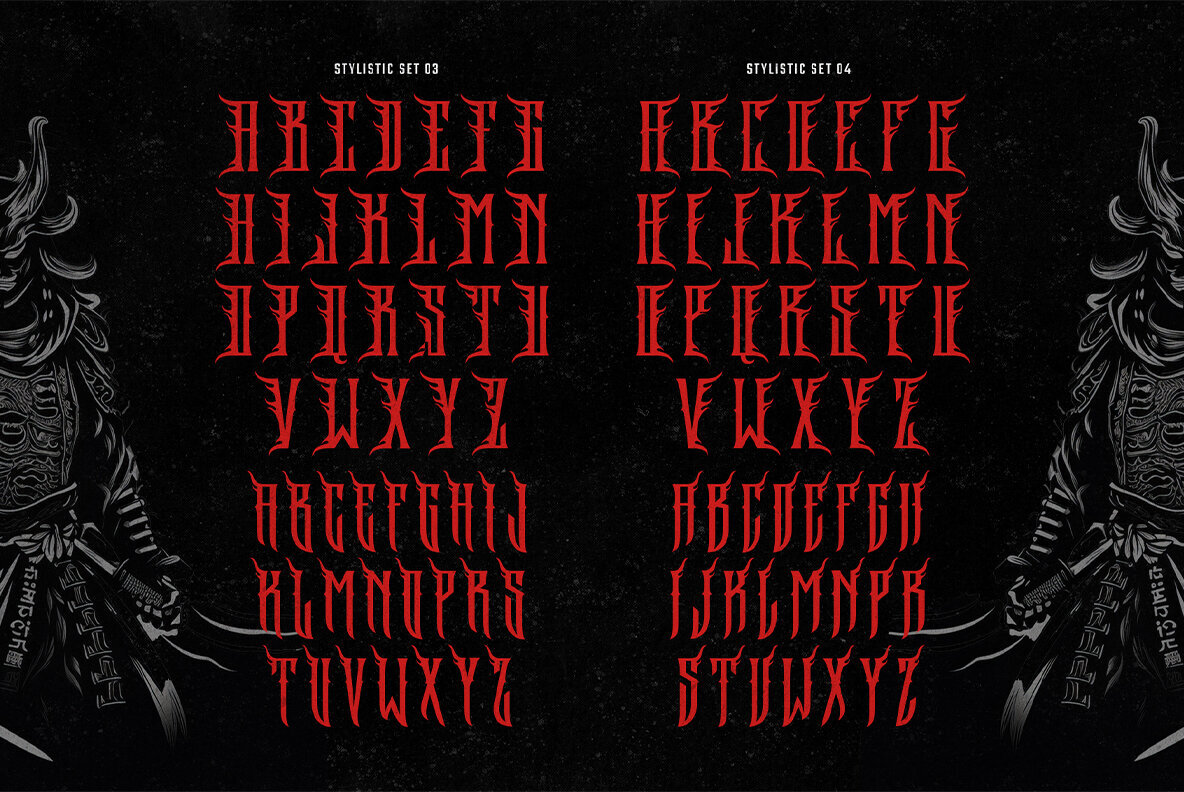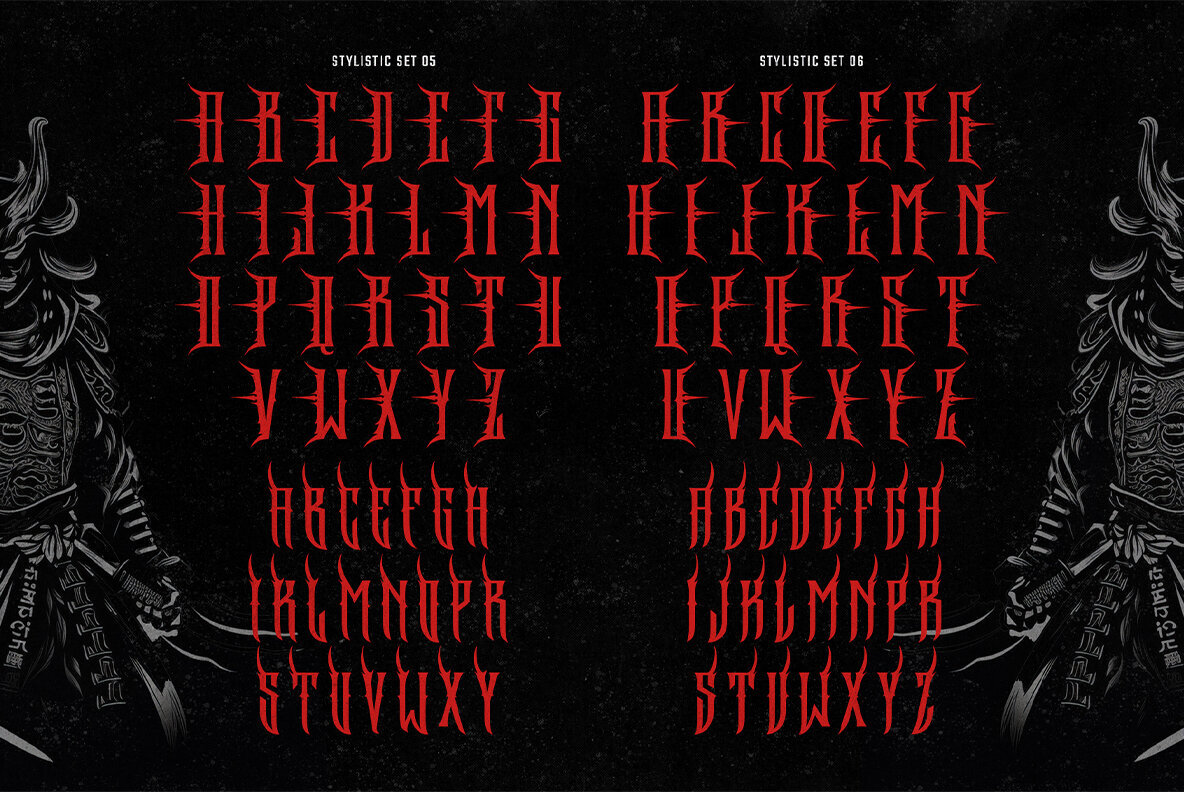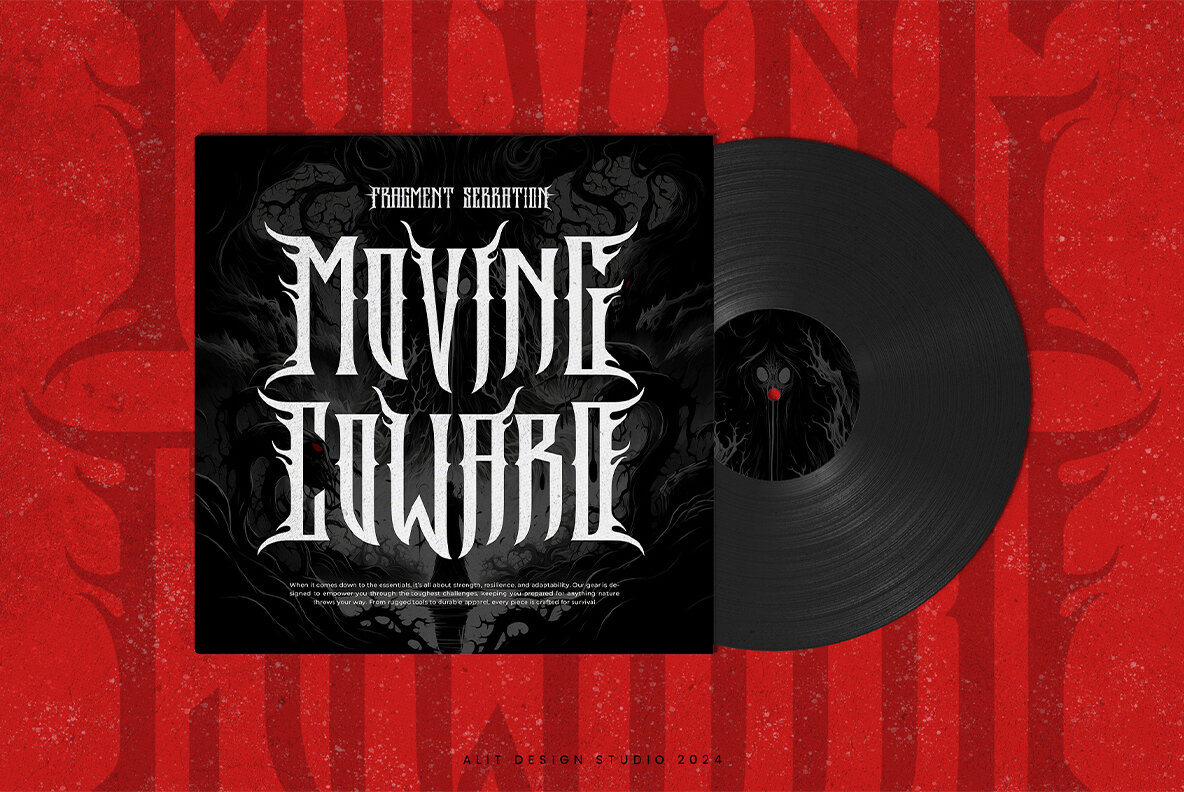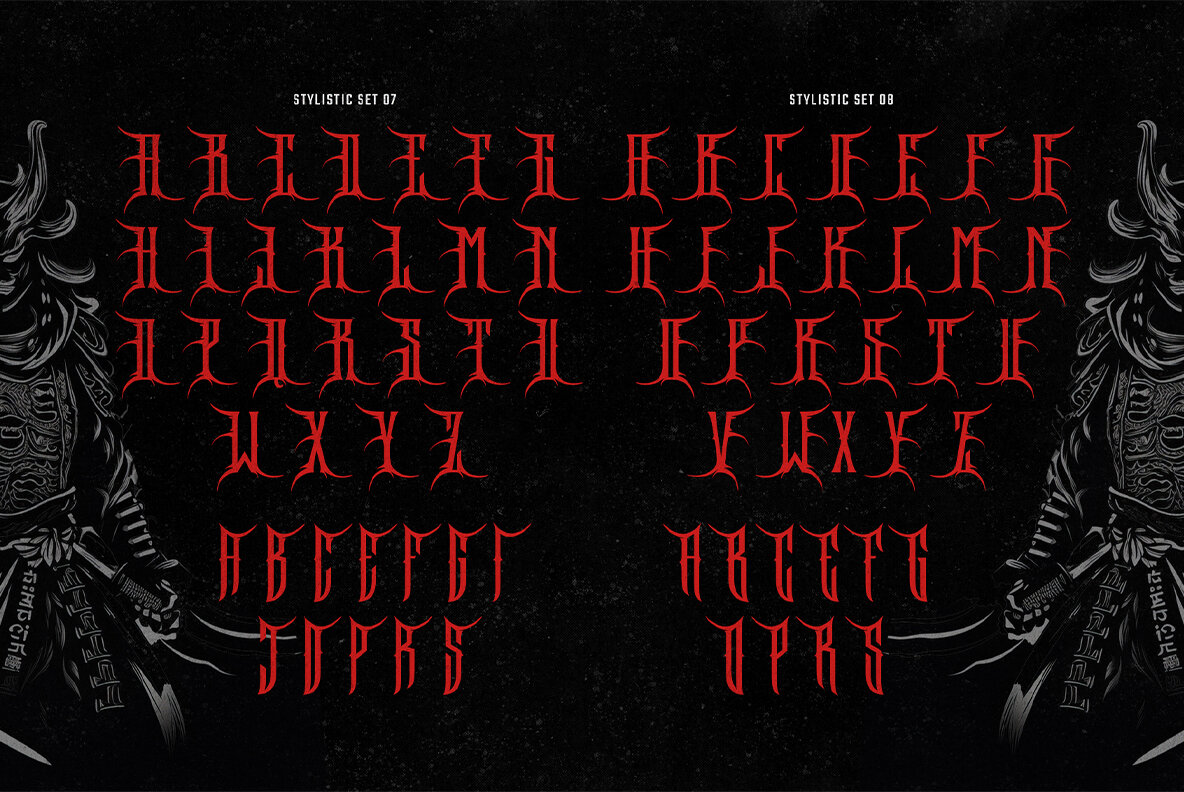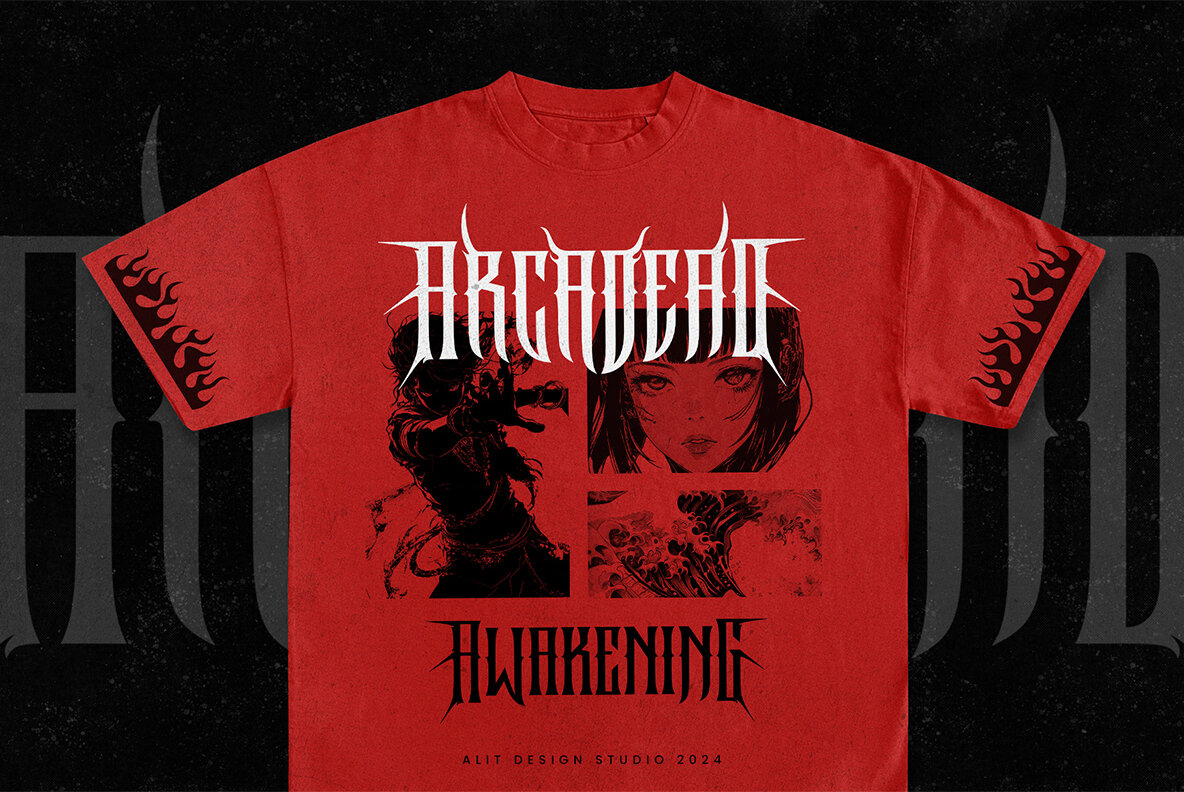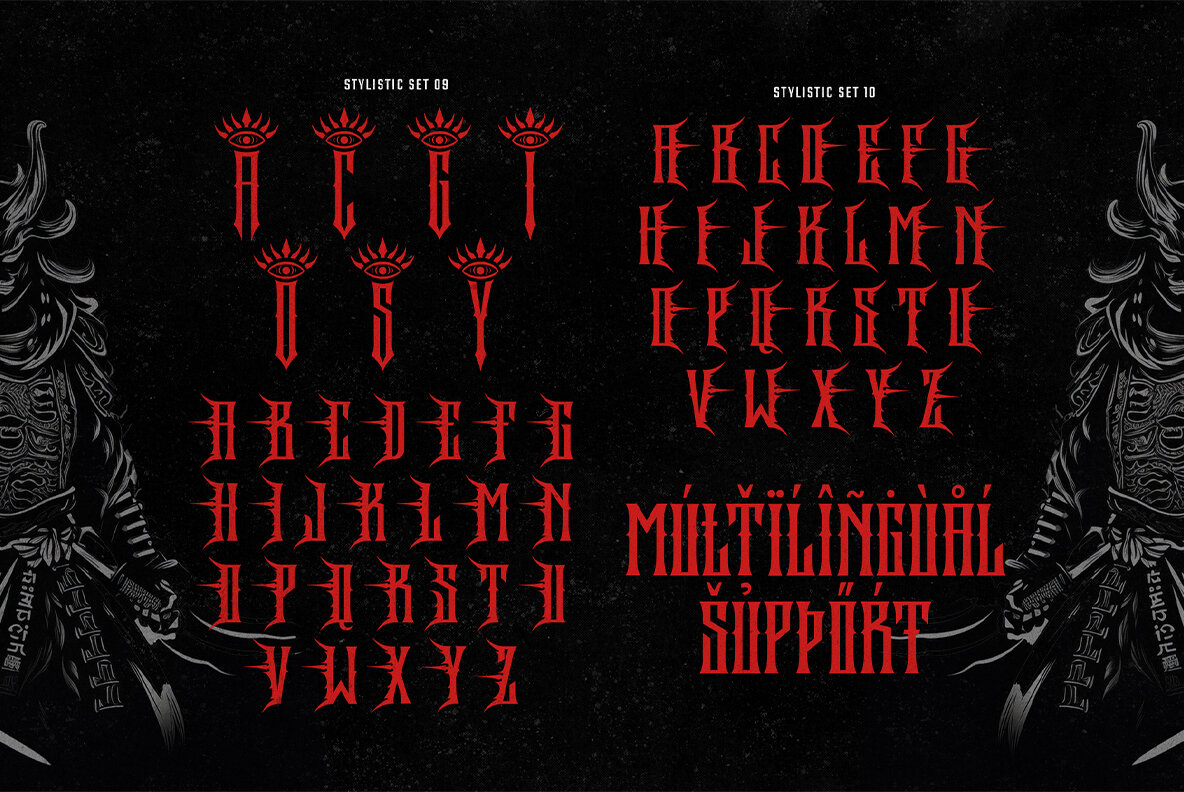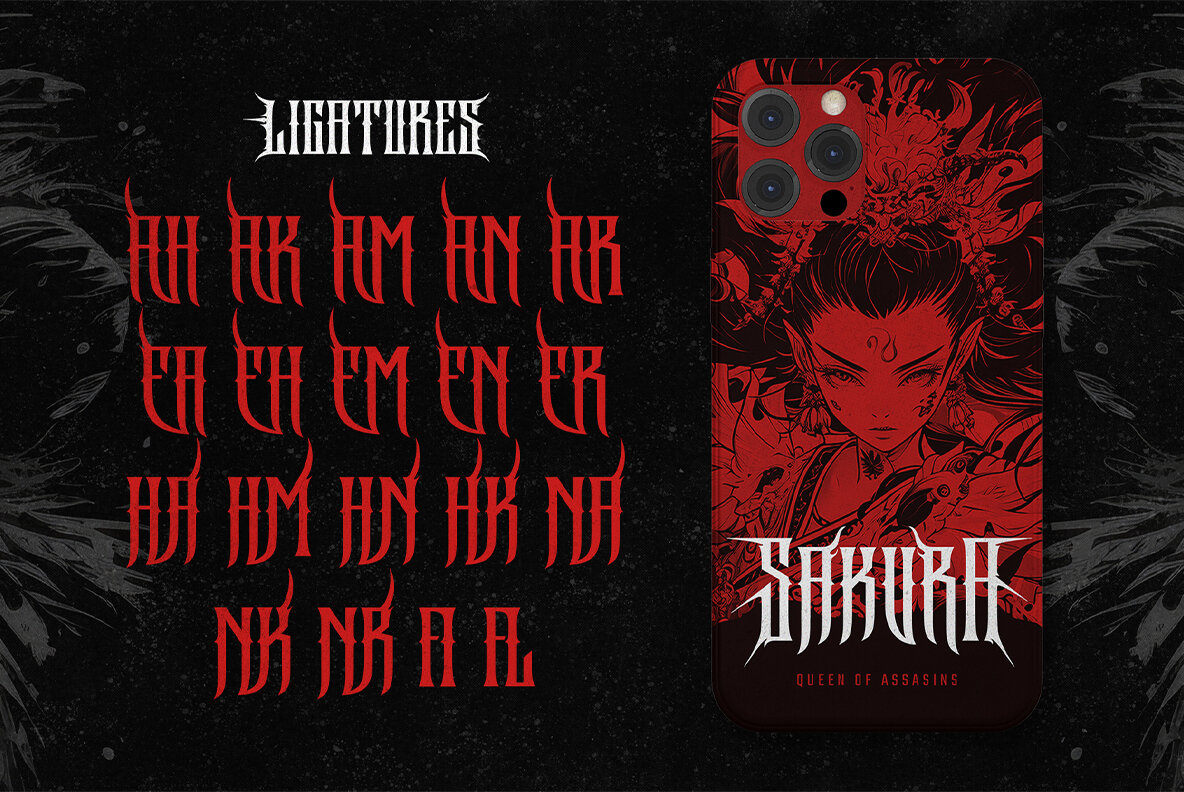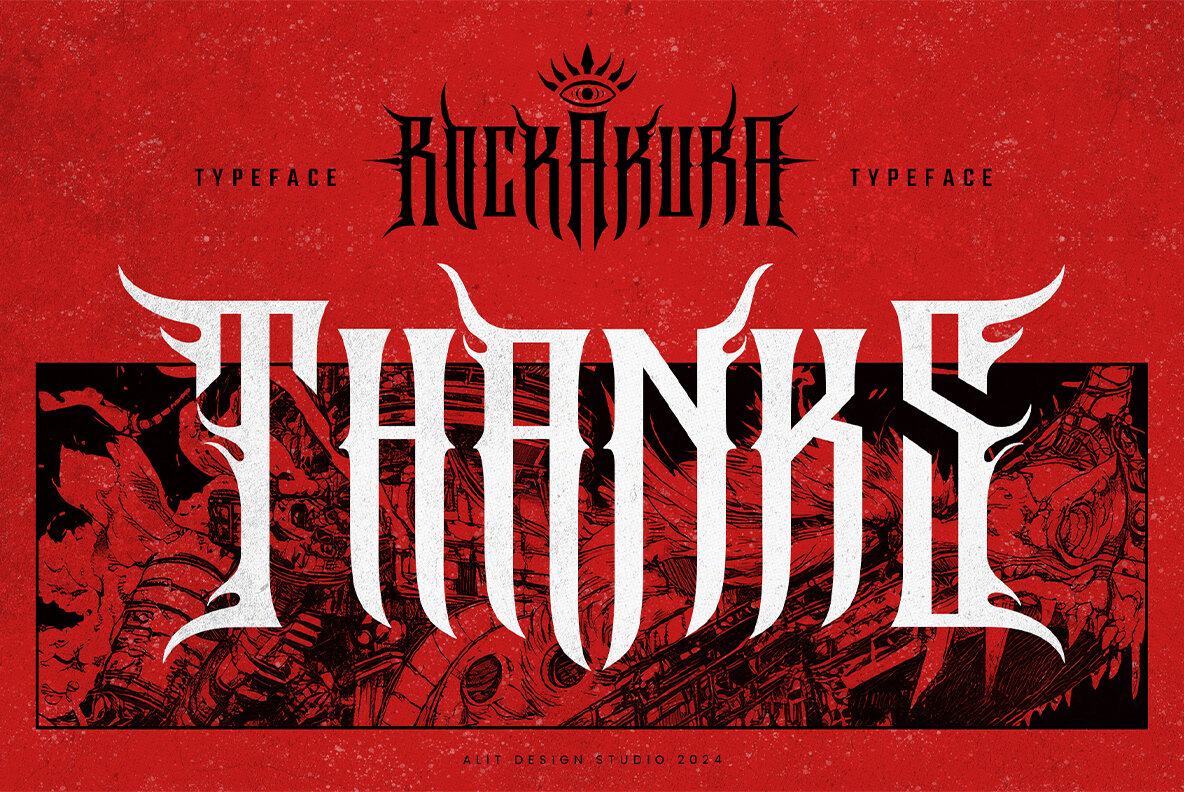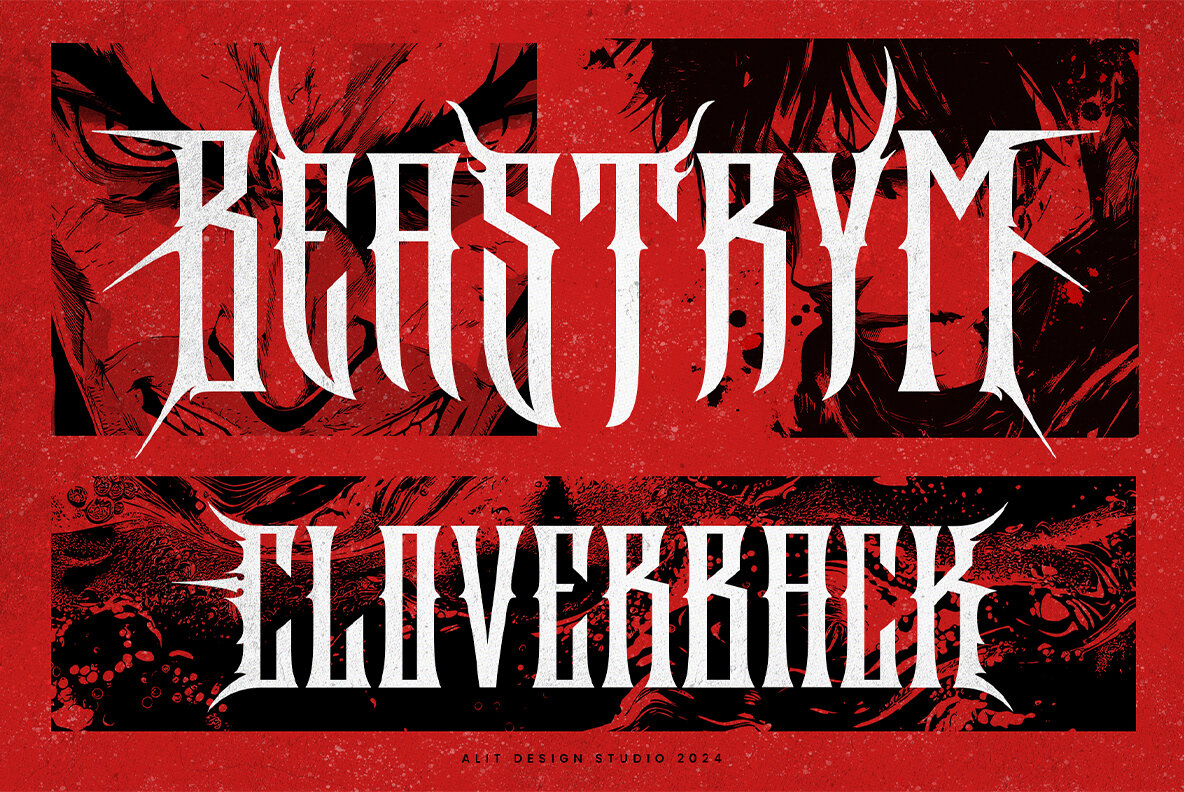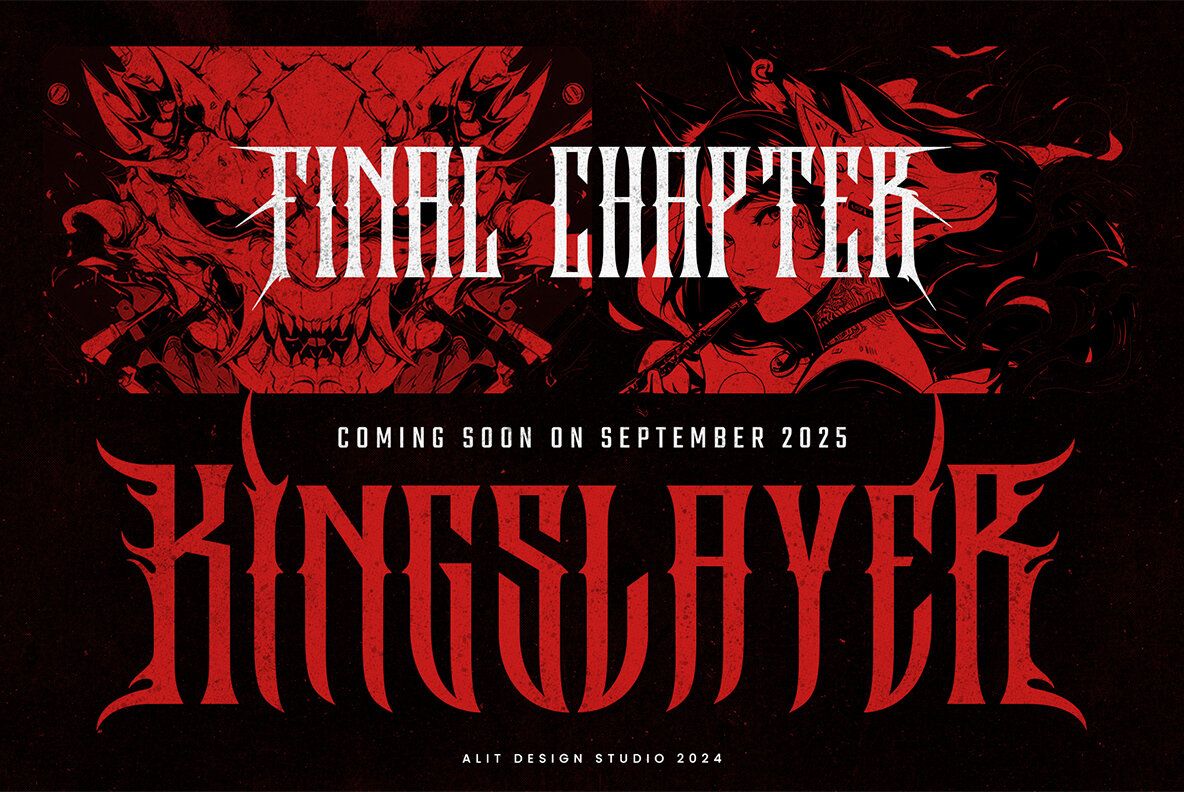
Rockakura Font
Rockakura Regular
Rockakura Typeface unleashes a bold, dark metal vibe, inspired by the raw power of metal culture. Its fierce and thorny design makes a statement, perfect for creating logos, album covers, posters, and projects that embody rebellion and strength. Designed for those who defy convention, Rockakura brings an intimidating, visual impact to every project.
With an extensive character set of 913 characters, Rockakura offers extraordinary flexibility, opening up endless creative opportunities. Its unique alternatives, distinctive ligatures, and dynamic swashes add dramatic flair, providing each design with a compelling edge. The PUA Unicode accessibility ensures all special features are easily attainable, making it suitable for both professionals and enthusiasts. Furthermore, Rockakura supports multiple languages, making it versatile for global projects.
Choose Rockakura Typeface for its fearless aesthetic, reflecting both chaos and precision. This font is a testament to bravery and rebellion, making it the perfect choice for those who embrace unapologetically bold styles. Dive into the darkness and let Rockakura make a powerful impact on your designs.